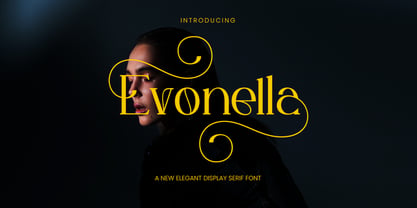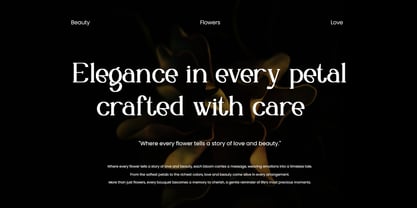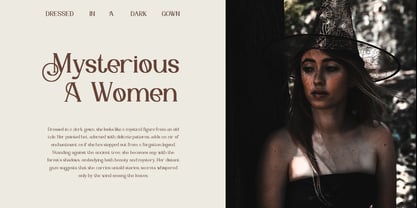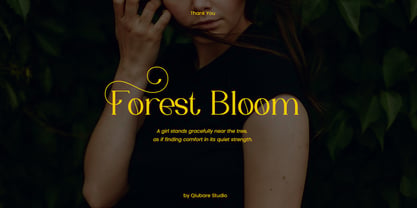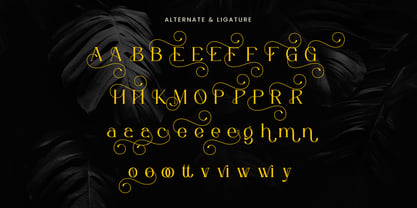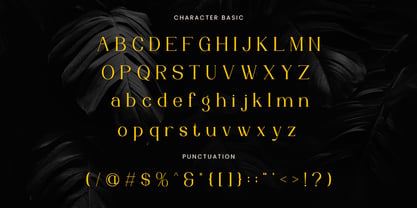
Evonella
by Qiubare Studio
The Evonella Font Family was designed by Michael Everson and published by Qiubare Studio. Evonella contains 1 styles. More about this family
Evonella is a sophisticated display serif font that blends timeless elegance with modern luxury. Designed with graceful curves and refined details, Evonella is perfect for creating striking headlines, stylish branding, and high-end editorial layouts. Its ornamental strokes and unique letterforms make it an ideal choice for fashion, lifestyle, and creative projects that demand a touch of class. Evonella available with: - Uppercase - Lowercase - Number & Punctuation - Multilingual Support - Stylistic Alternate & Ligature